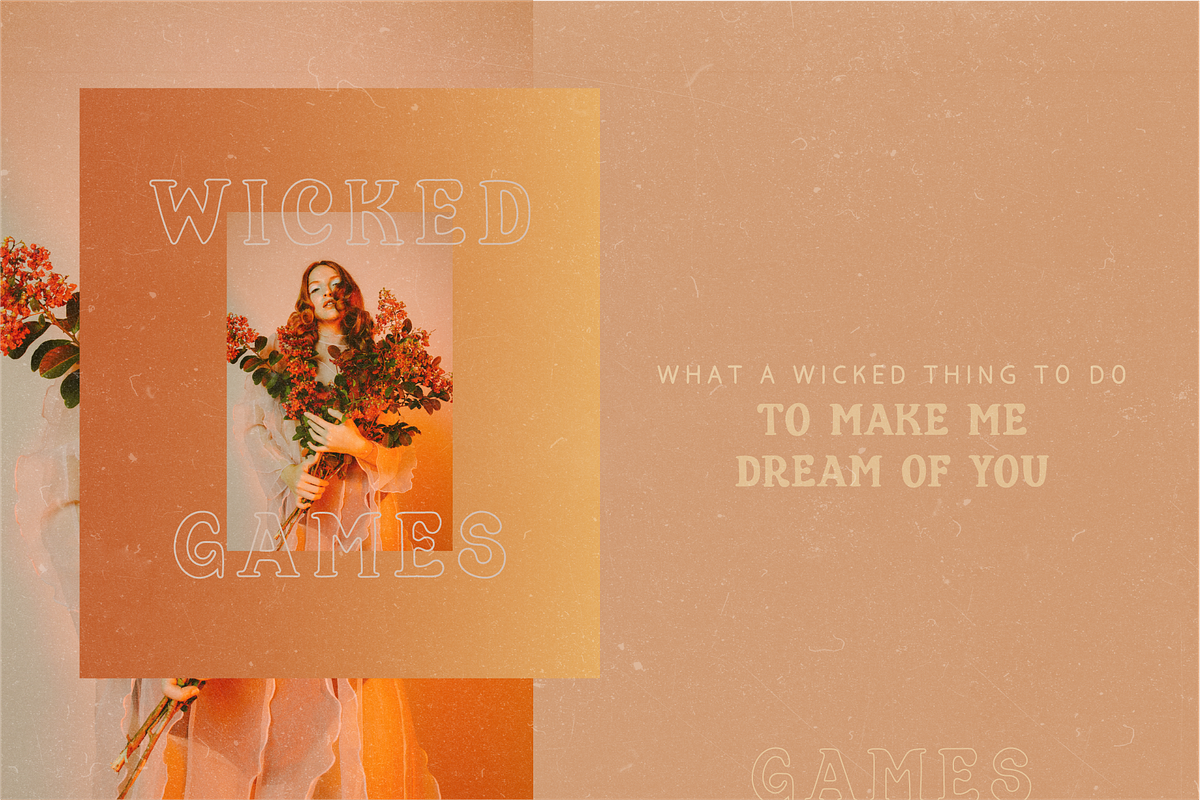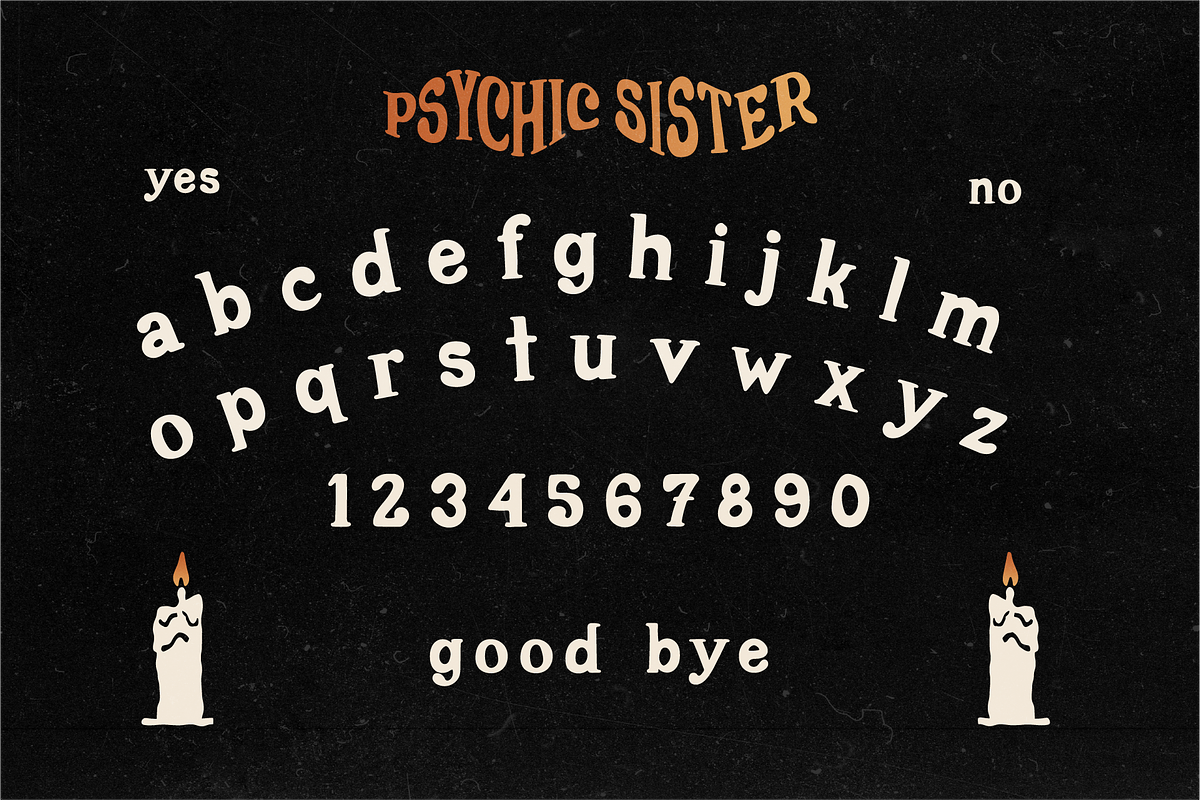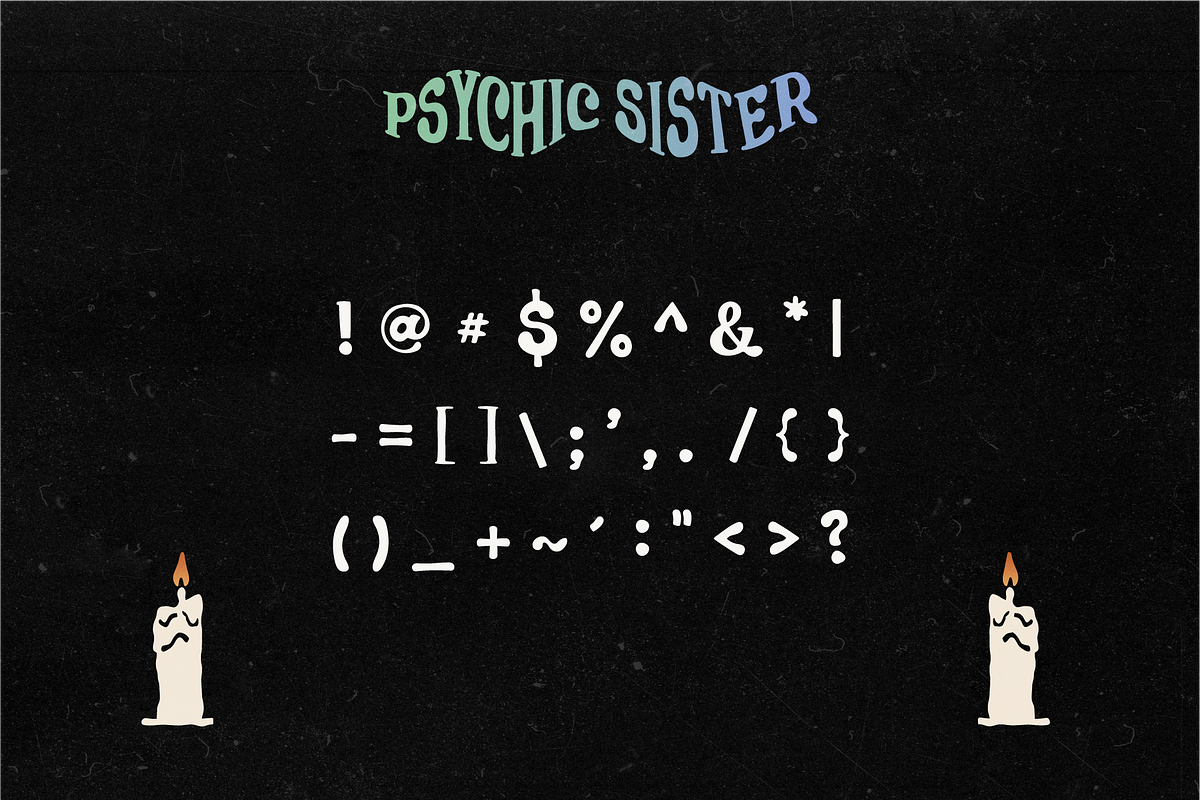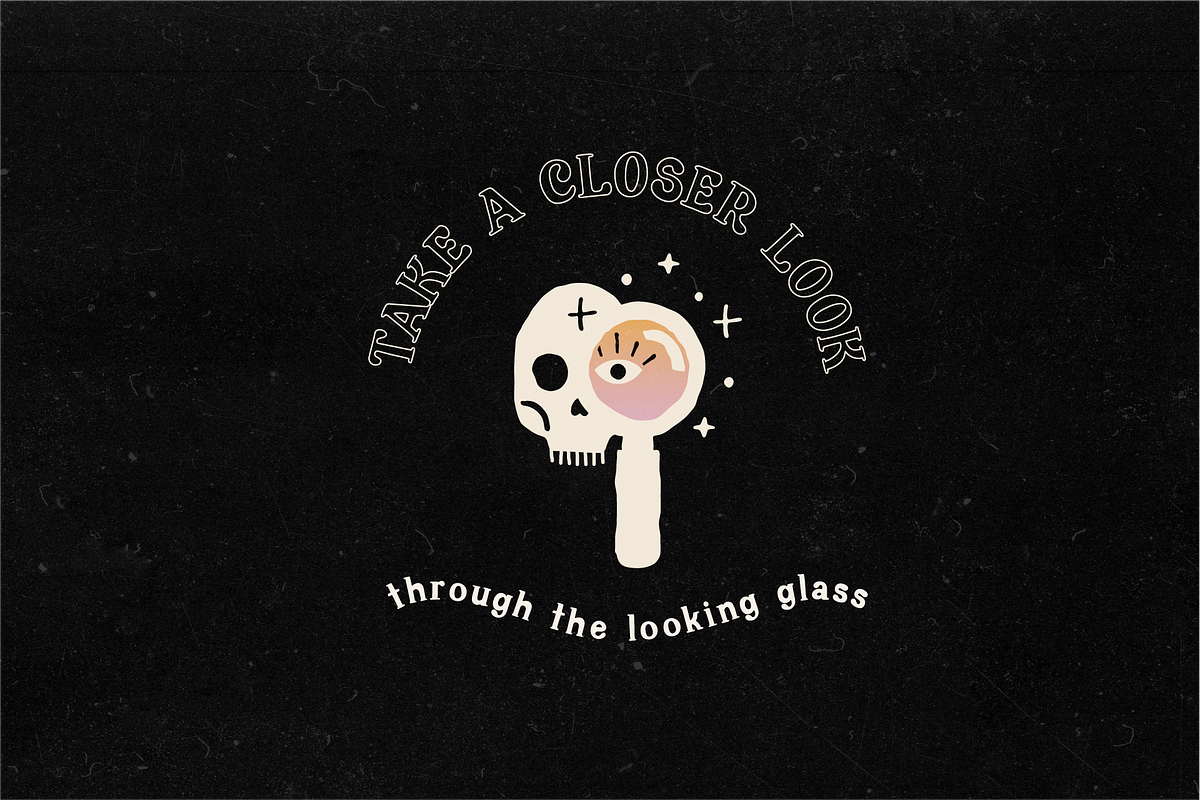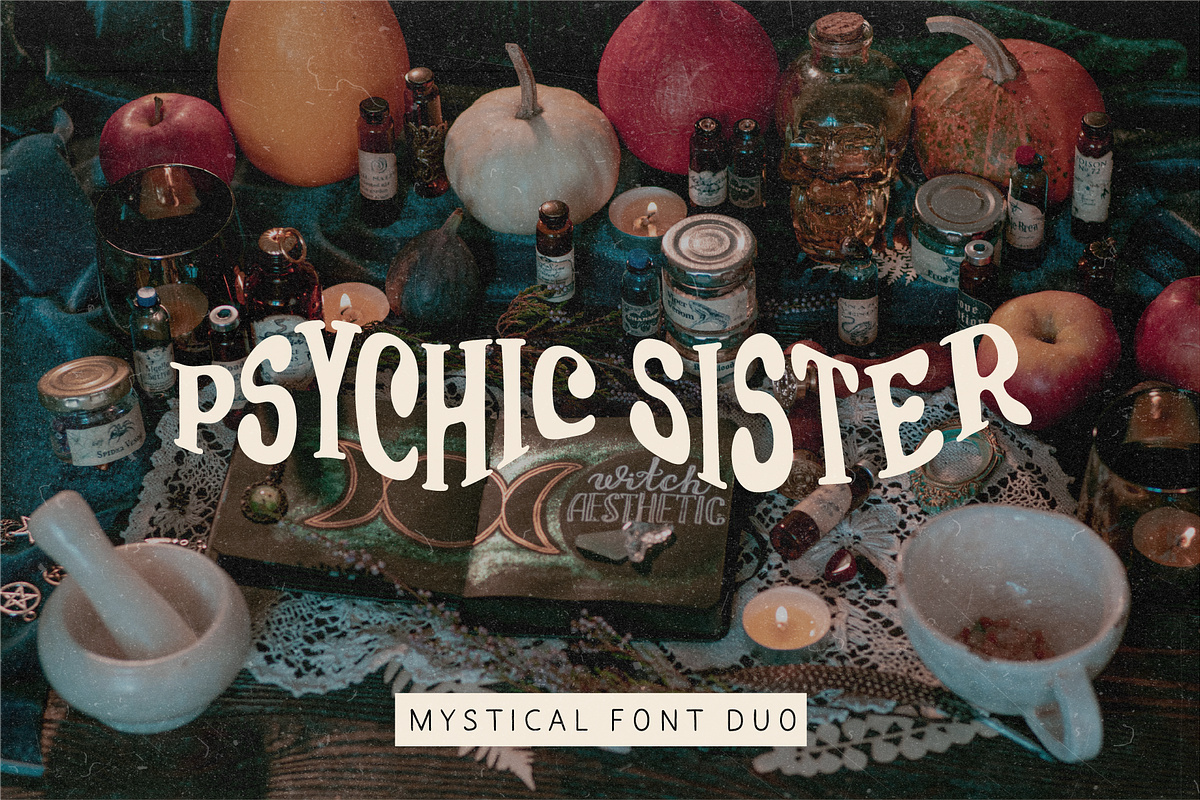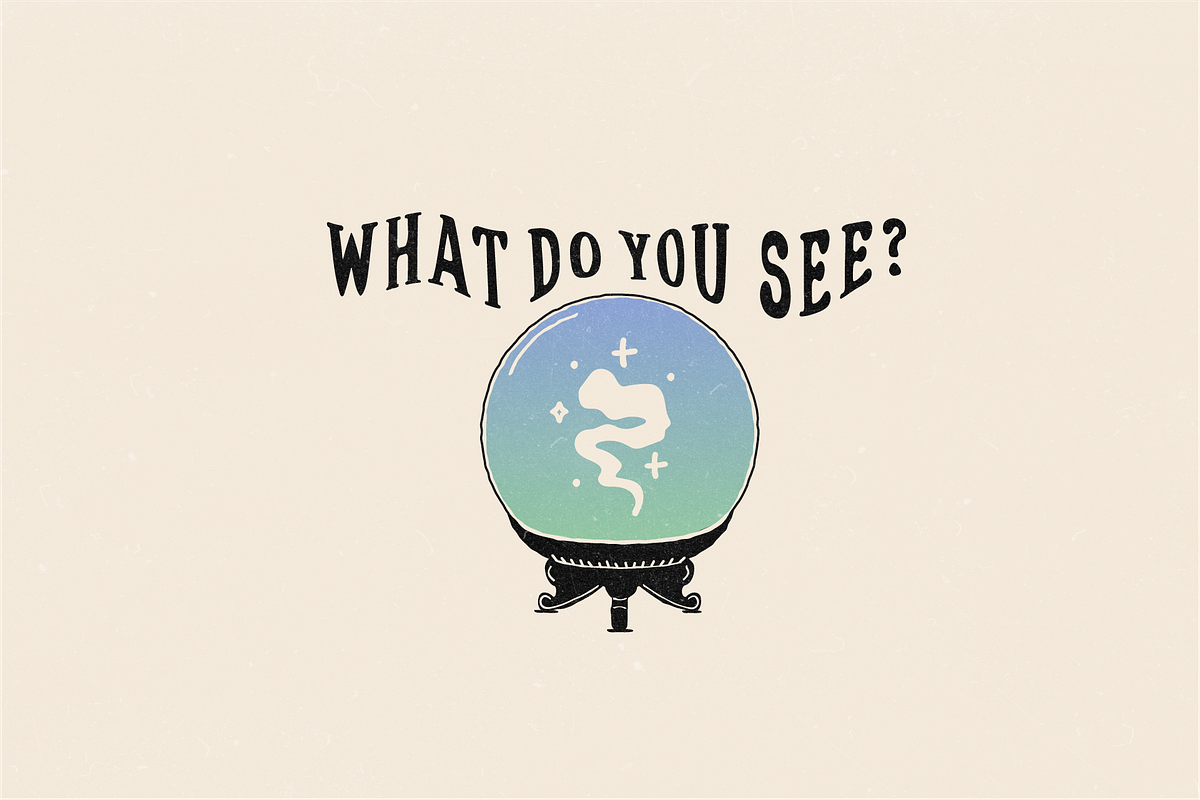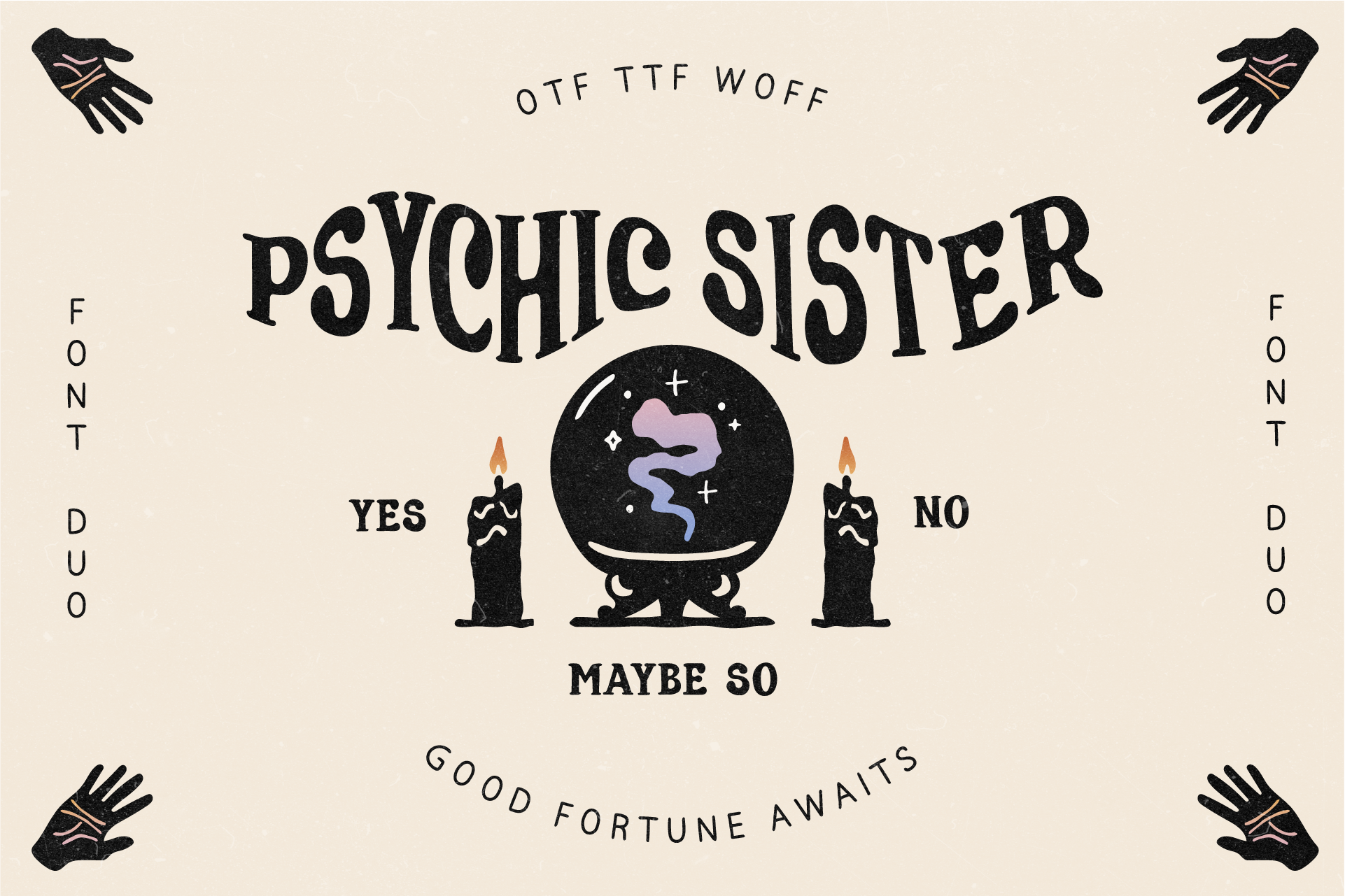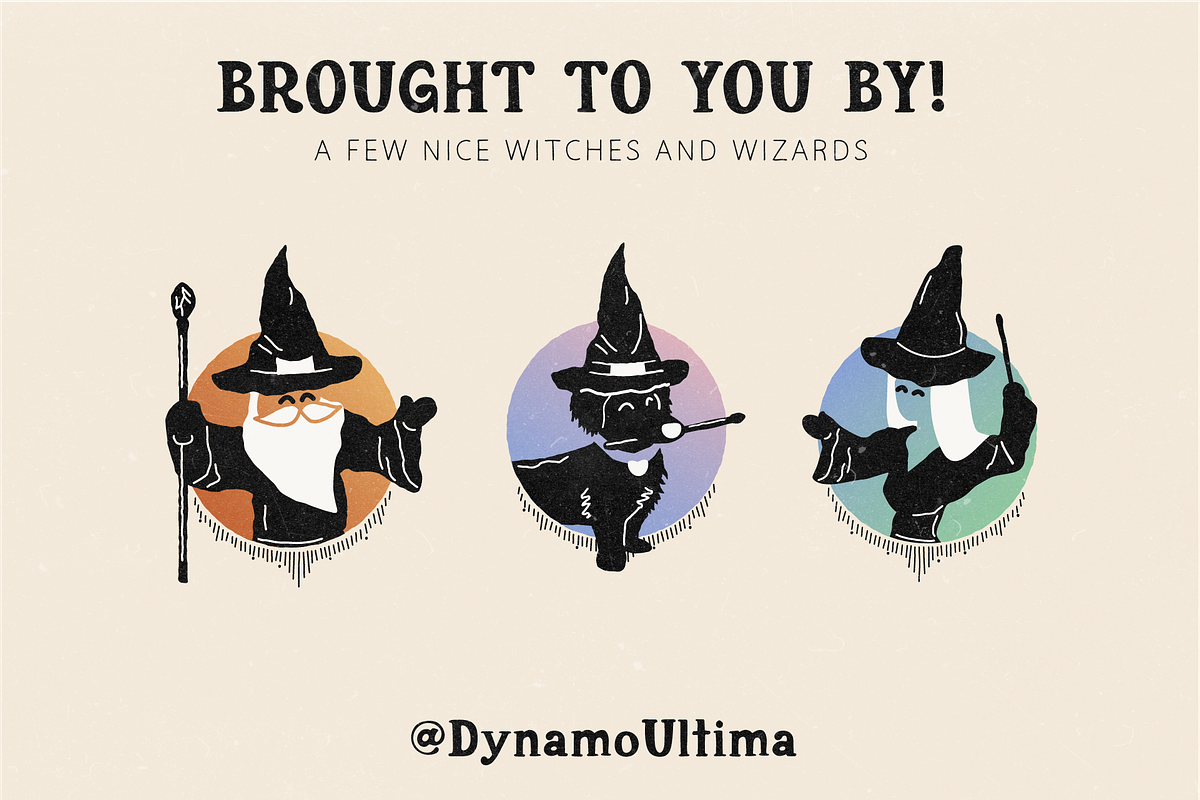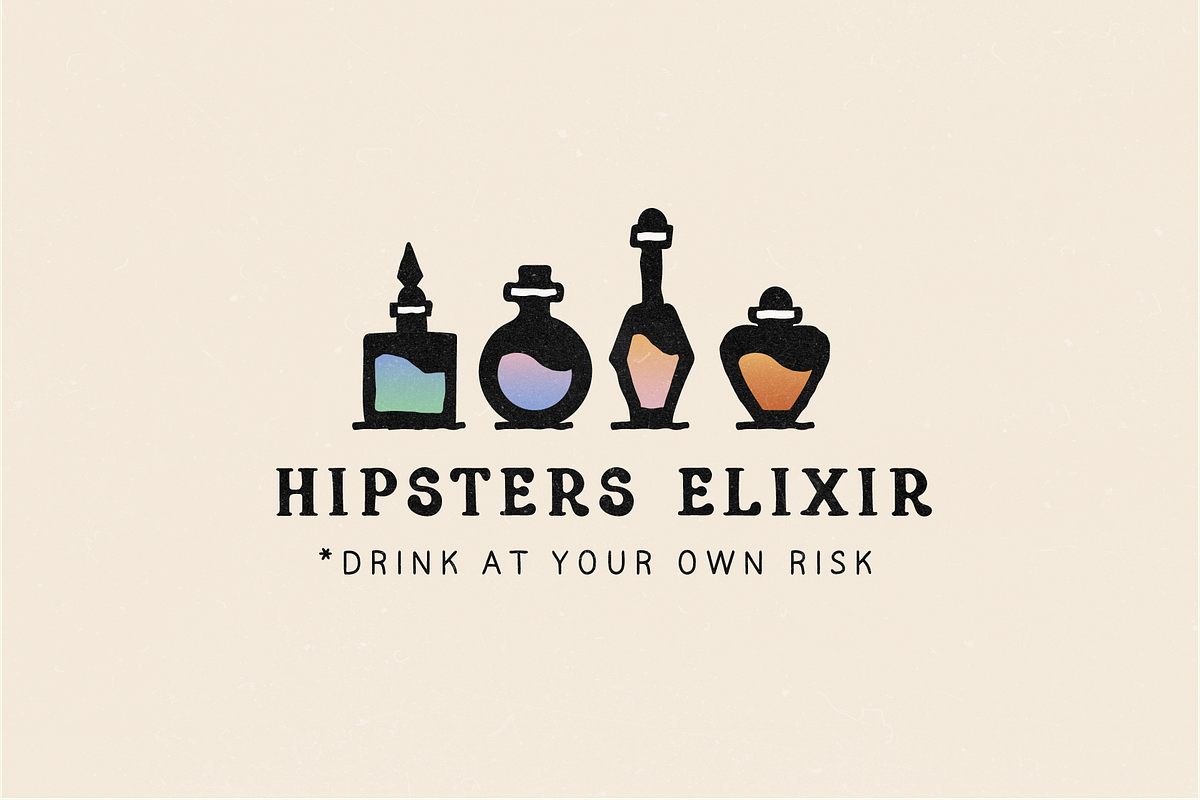
Psychic Sister Mystical Font Duo
DU-PsychicSister is a funky & mystical font pairing perfect for logos and branding. Psychic Sister is a mystical aesthetic serif paired with a clean handwritten sans serif, Using both handwritten fonts creates a contrast between stroke weight and also between serif and sans serif styles. Choose Psychic Sister if you need a bold serif paired with a handwritten sans serif. It also bends and warps well for extra psychedelic flair.